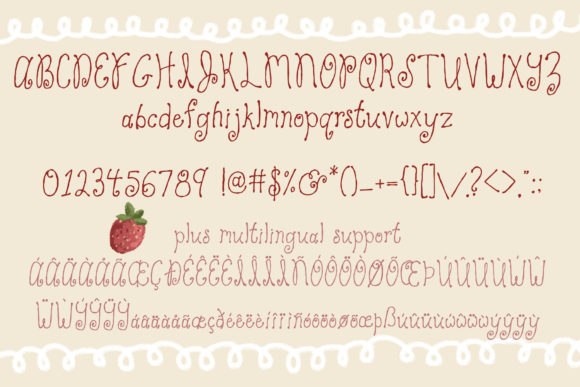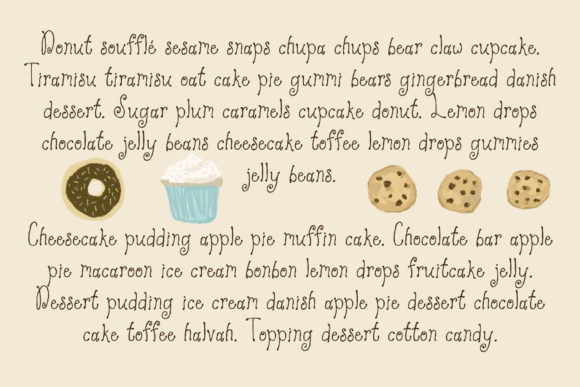
Strawberry Cake Font
db-ku.com - Script & Handwritten -- Strawberry Cake is a unique and elegant handwritten font. It looks beautiful on a variety of designs requiring a personalized style, such as wedding invitations, thank you cards, weddings, greeting cards, logos and so on.